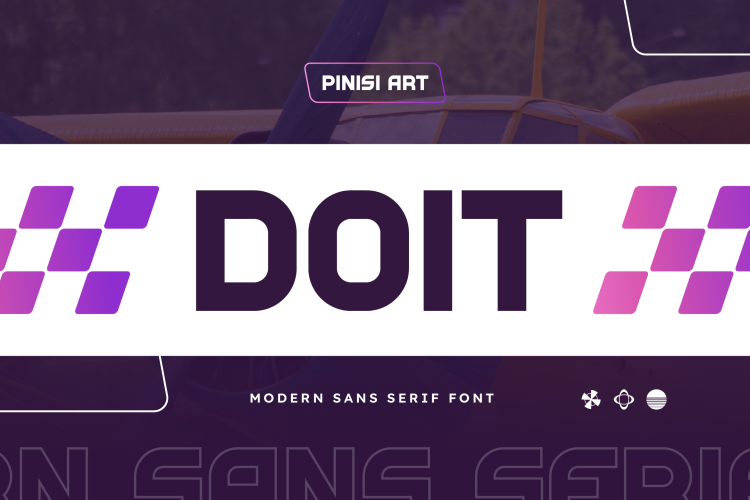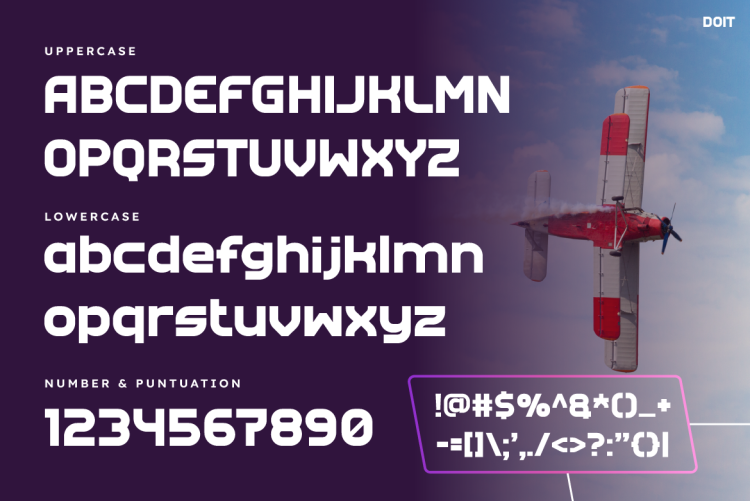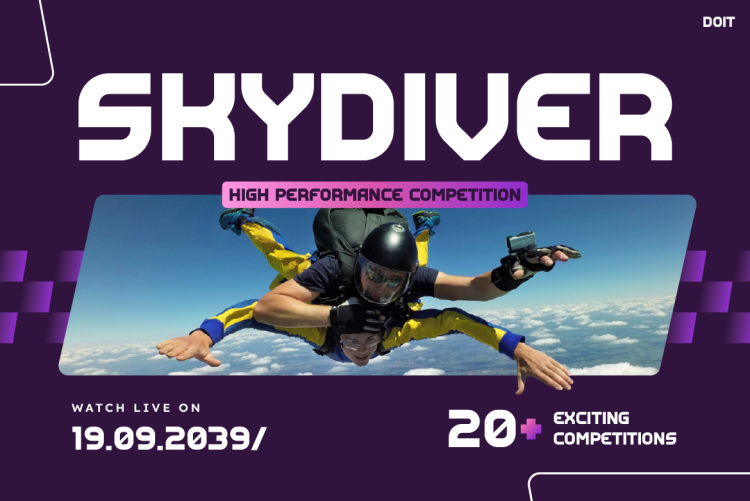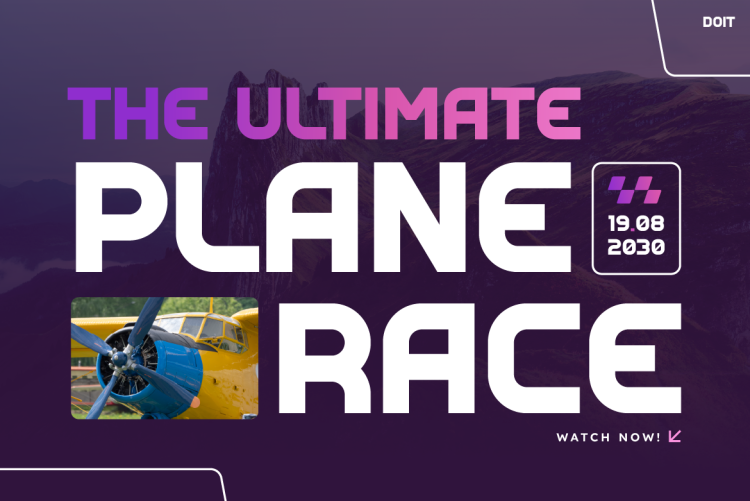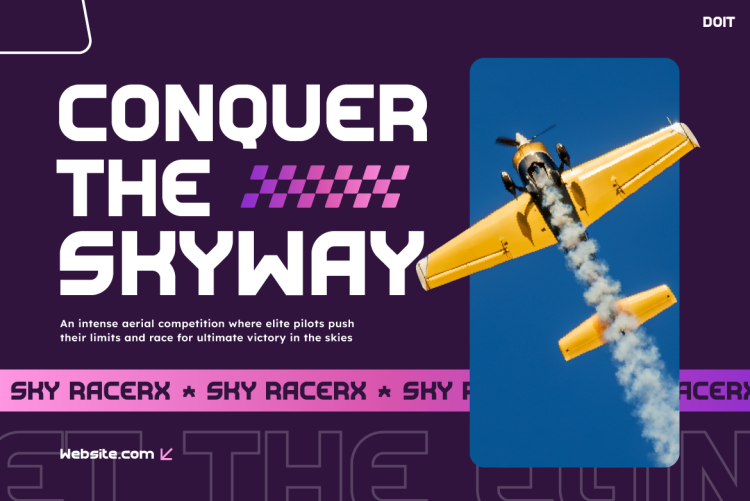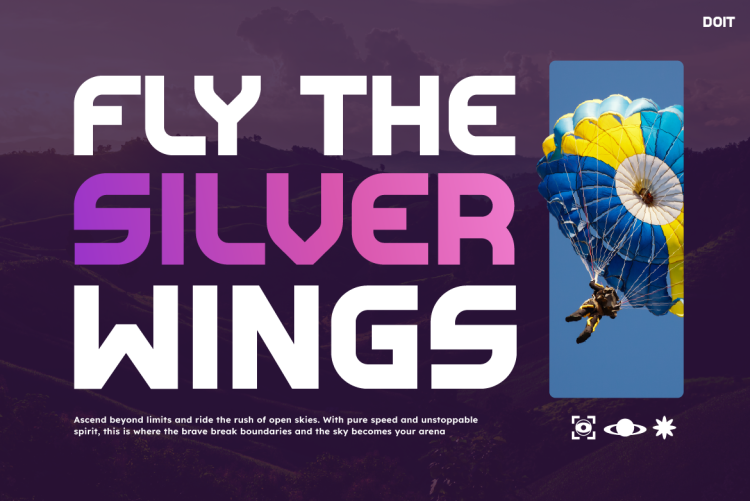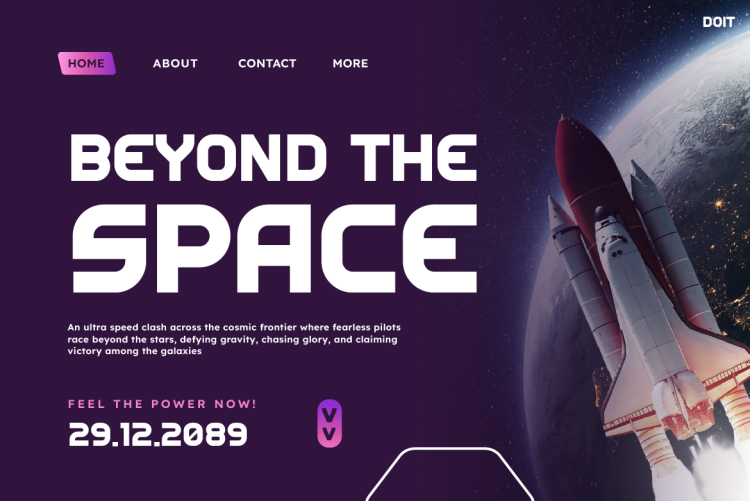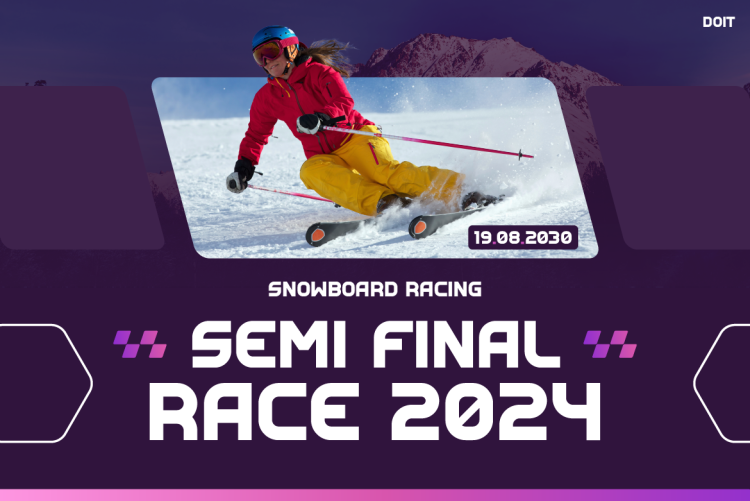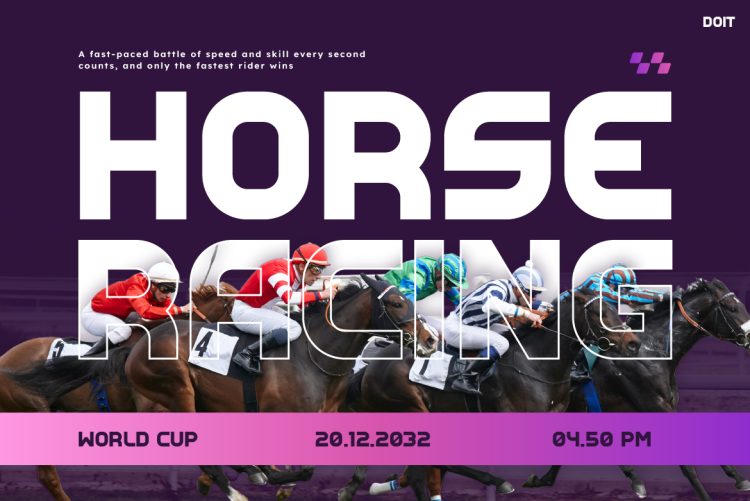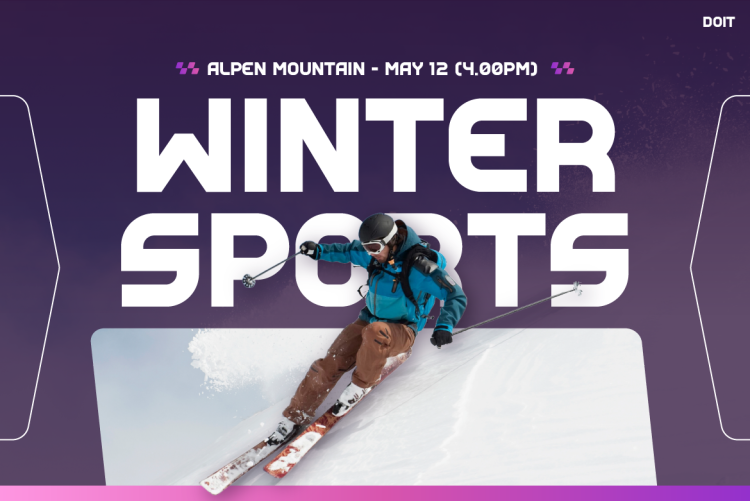
Sport Font DOIT is where speed meets bold creativity. This futuristic display typeface doesnโt just look powerful โ it feels alive. Its aerodynamic shapes and geometric precision capture the thrilling energy of motion, while its sharp lines bring an unmistakable sense of power and confidence. Moreover, each curve is carefully crafted to convey adrenaline and momentum, making it perfect for brands that want to express action, courage, and innovation.
From racing banners to esports visuals, Sport Font DOIT brings your designs to life with a rush of movement. It blends modern aesthetics with sporty elegance, creating a typeface that feels both professional and exciting. Therefore, if youโre looking for a font that transforms simple words into dynamic visuals, this one is made for you.
Sport Font DOIT Perfect For
Sport Font DOIT is ideal for designers, creative agencies, and modern brands seeking a bold and energetic identity. It works beautifully for sports campaigns, adventure posters, car racing flyers, fitness branding, and high-energy digital projects. In addition, itโs perfect for gaming channels, tournament graphics, and extreme sports merchandise that require attention-grabbing typography.
Because of its strong readability and futuristic edge, DOIT suits any visual that demands motion, strength, and modernity. Whether youโre designing for a snowboard event, a skydiving competition, or a high-tech racing team, this font ensures your message looks fast, fierce, and unforgettable.
Meanwhile, its versatility allows you to experiment with multiple design styles โ from minimalist branding to vibrant action visuals โ without losing its dynamic personality.
Why Youโll Love It
With Sport Font DOIT, youโre not just adding text โ youโre adding energy. Each letter sparks excitement, making your project look powerful and alive. Furthermore, its combination of bold lines and smooth flow helps your brand stand out from the crowd. As a result, audiences will instantly feel the speed, ambition, and victory your design conveys.
So, donโt wait for inspiration to strike โ ignite it. Push your limits, elevate your visuals, and do it with DOIT.